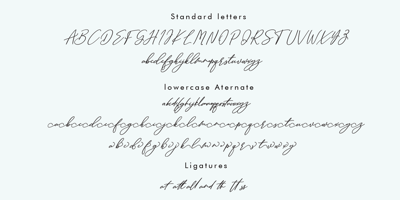
Sottalica
Sottalica font
Sottalica Font Family was designed by Munawir and published by Mightype. Sottalica contains 1 styles and family package options. Sottalica Script is a modern calligraphy font with the current handwriting style, this font is perfect for branding, wedding invites, magazines, mugs, business cards, quotes, posters, and more, you can try first if you want to buy this font. Sottalica Script is equipped with 315 glyphs. and by having many of these glyphs there will be able to choose the letters according to your likes, lots of variations and options for each letter, so you can customize on your design choices. with pleasure and happiness, in this font package you will get: Sottalica Script OTF to use a variety of flying machines, you need a program that supports OpenType features such as Adobe Photoshop Cs / Adobe Photoshop CC, Adobe Illustrator CS / Adobe Illustrator CC, Adobe Indesign and Corel Draw and many more programs that support OpenType. If you do not have a program that supports OpenType, you can access all the alternate glyphs using Font Book (Mac) or Character Map (Windows) if you have any question, do not hesitate to contact me by email mightype89@gmail.com Thanks and happy designing 🙂 Thank You for purchase!